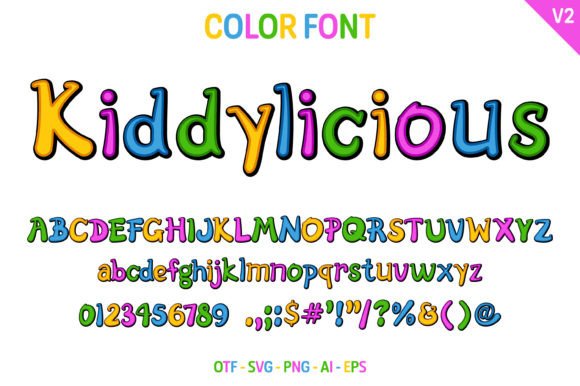
Welcome to the world of Kiddylicious V2 Font, a realm of boundless creativity and imagination for all your Cricut DIY sign projects. Step into a world where colors come alive, where ideas dance off the page, and where your creations take on a life of their own.
Kiddylicious V2 isn't just a font; it's an expression of joy, a burst of laughter captured in every curve and line. Its playful nature and vibrant hues ignite the imagination, evoking a sense of wonder and delight.
With Kiddylicious V2, you'll embark on a whimsical journey where your designs come to life. Its rounded edges and bold weight create a visual masterpiece, drawing eyes and captivating hearts. Each letter is a handcrafted gem, meticulously designed to make your words dance off the page.
This extraordinary font grants you the power to weave tales, craft memories, and share your unique stories with the world. Its versatility knows no bounds, allowing you to create children's books, posters, logos, and everything in between. Watch as your creations transform into colorful masterpieces, radiating cheer and capturing the essence of childhood.
Kiddylicious V2 is more than just a font; it's an invitation to explore the realm of imagination, to embrace the vibrancy of life, and to create designs that inspire, uplift, and enchant. Join the Kiddylicious V2 revolution and let your creativity soar like never before.